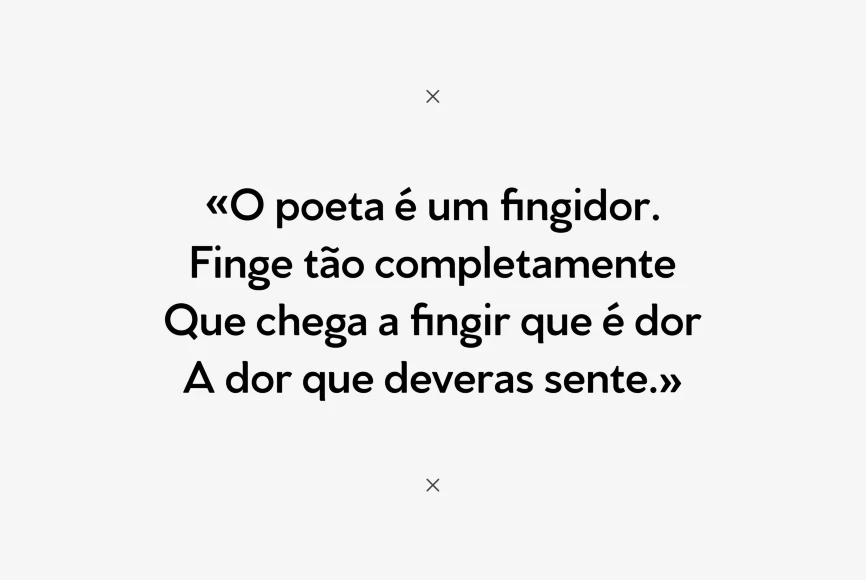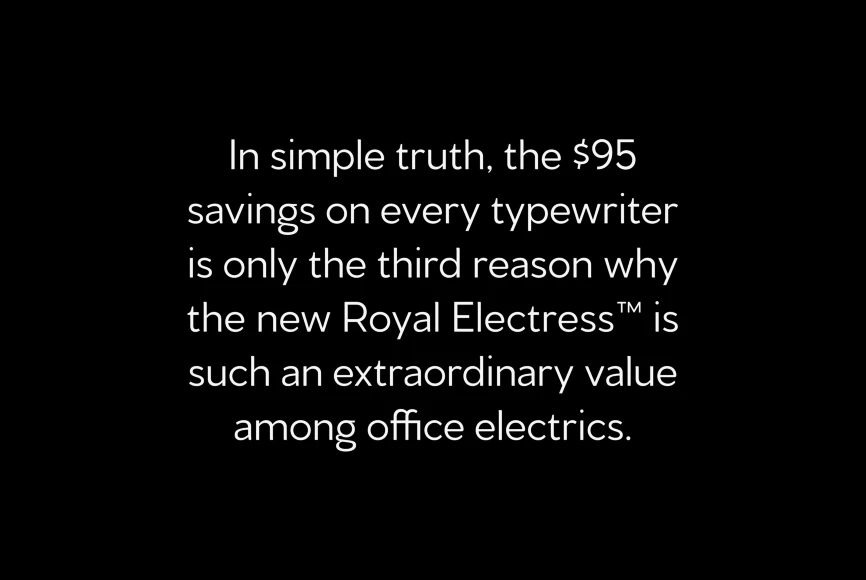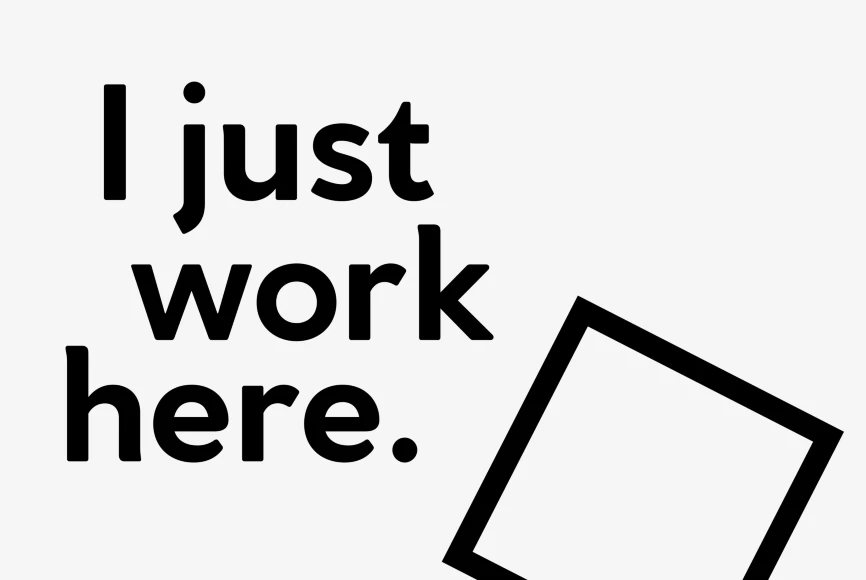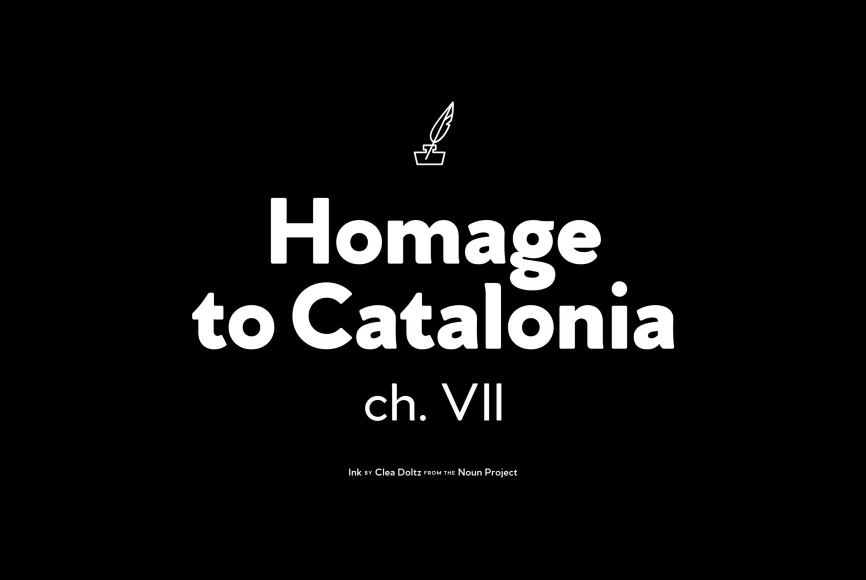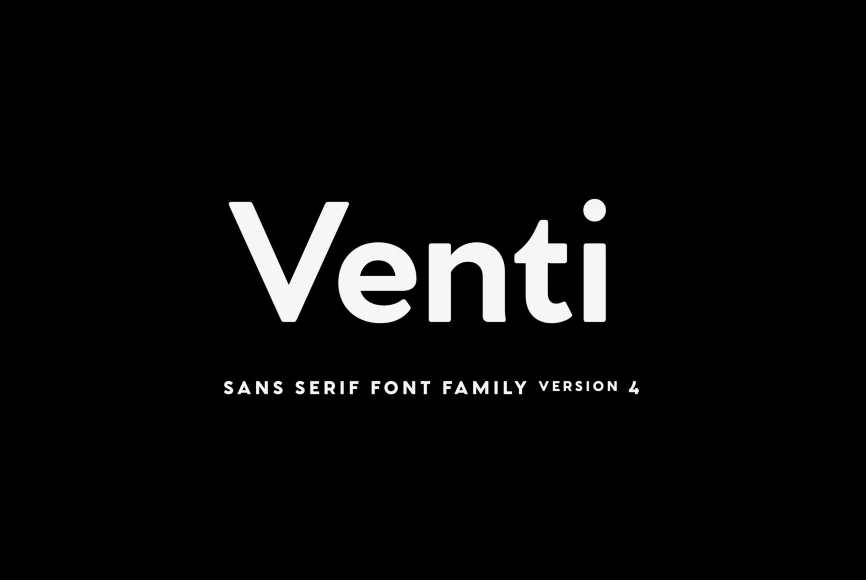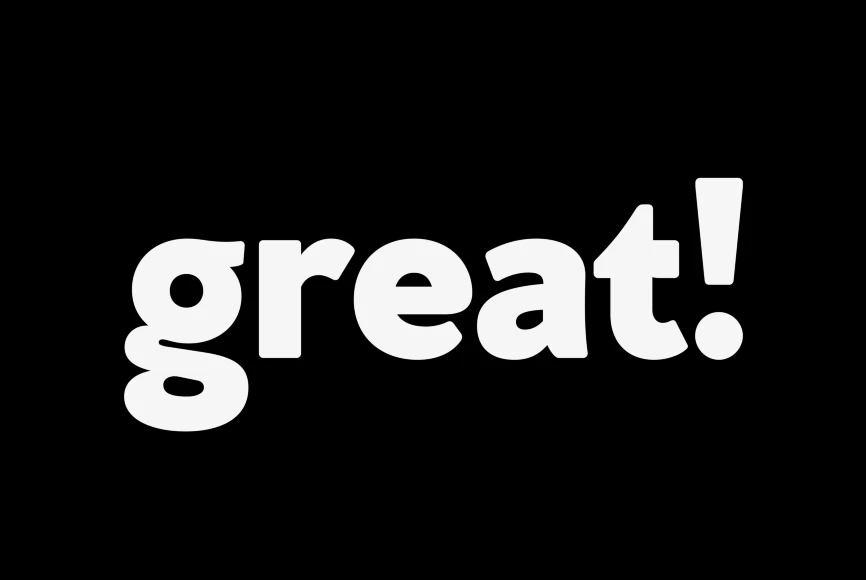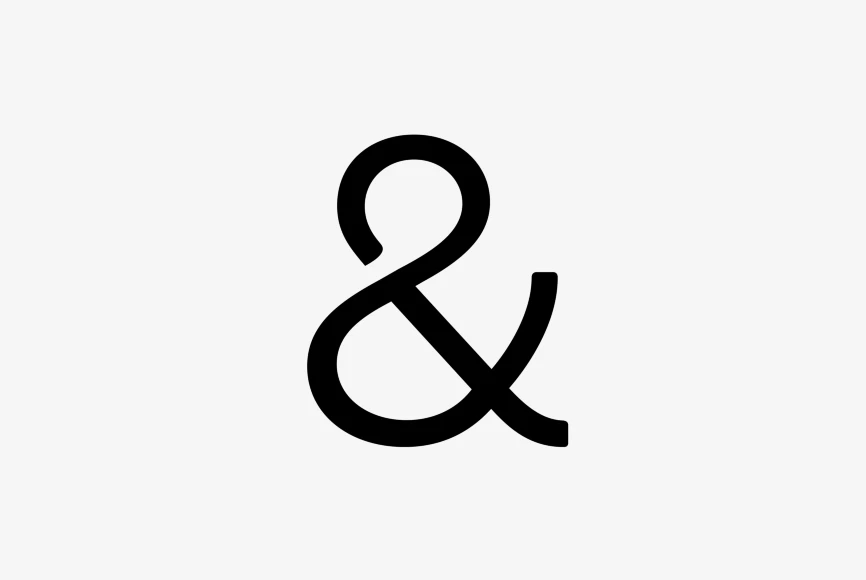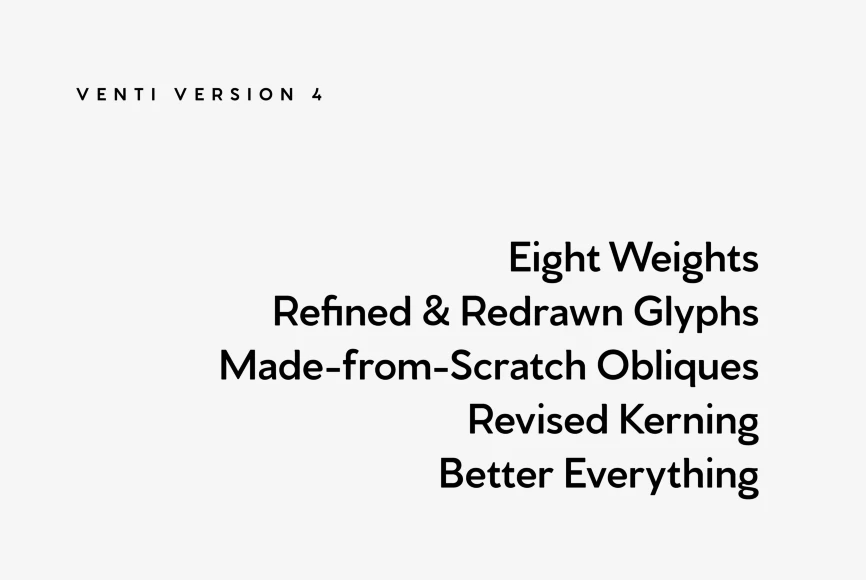
Venti
By Connary Fagen
Venti is a geometric font family with a warm, engaging character. Inviting and versatile, Venti’s subtle human overtones are well suited to headlines, logos, and short text.